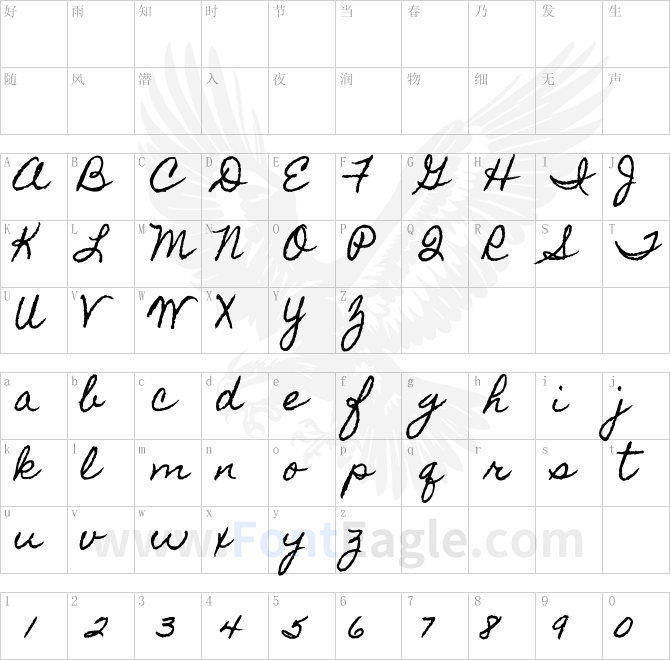
Homemade-Apple is a great font, widely used in graphic design, single-page menu design, poster design and other fields, and is deeply loved by designers.Homemade-Apple download.